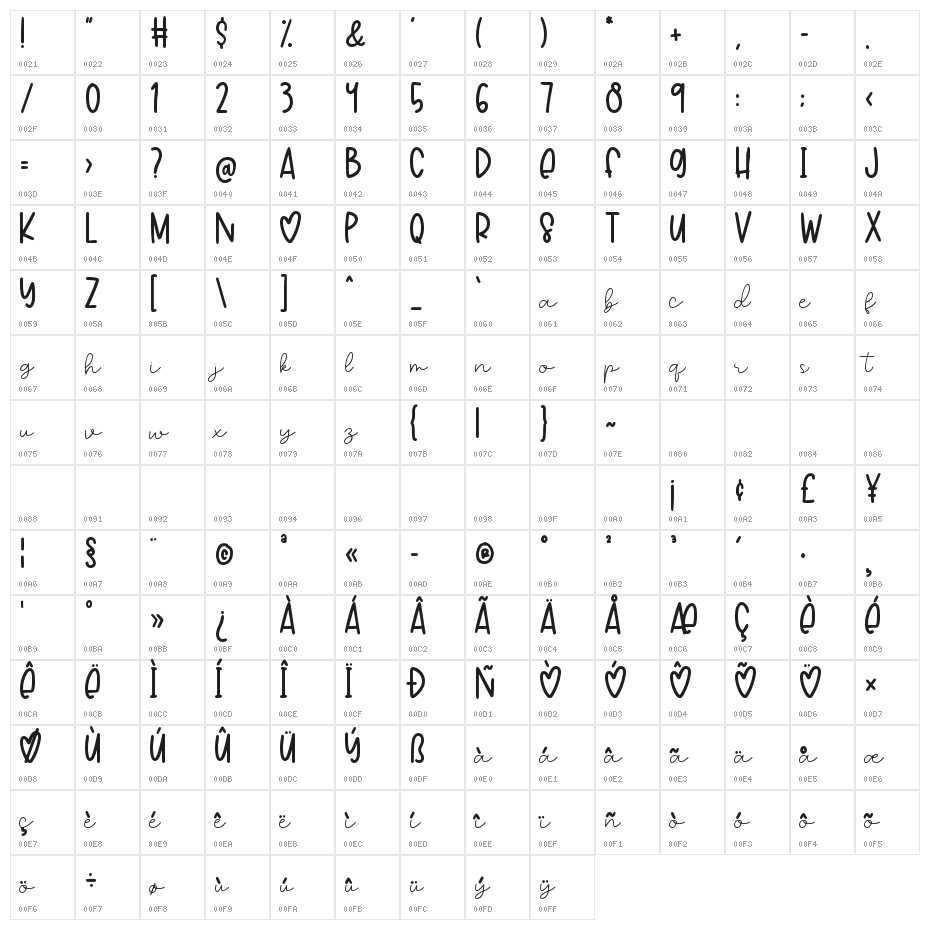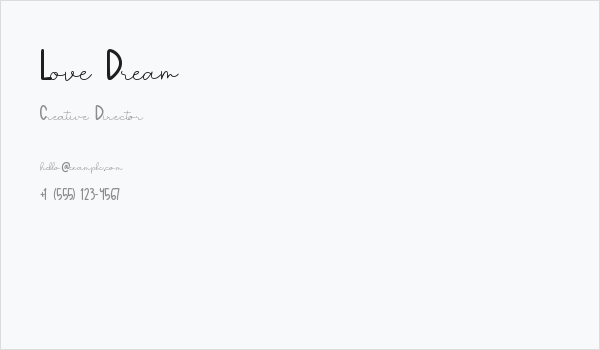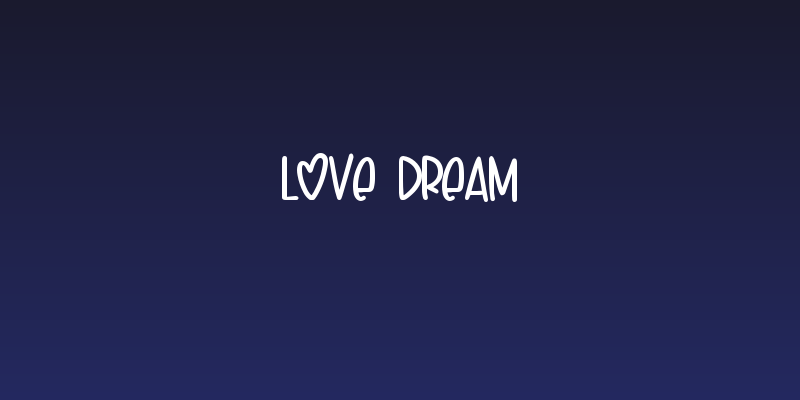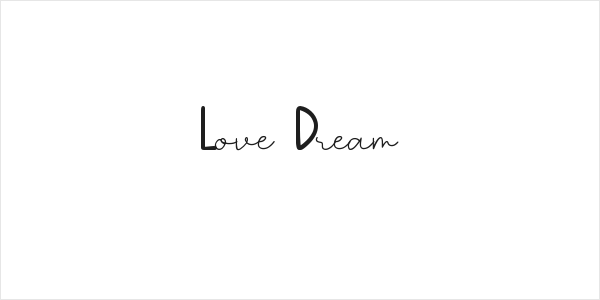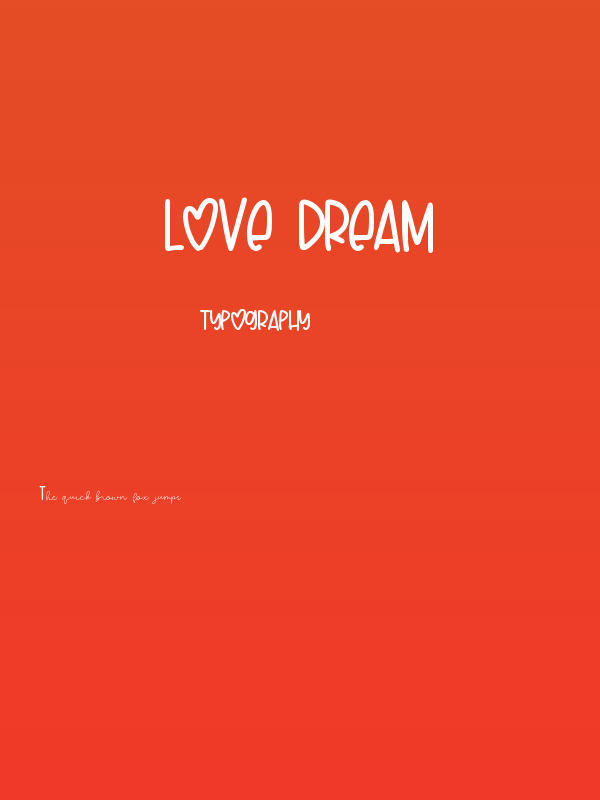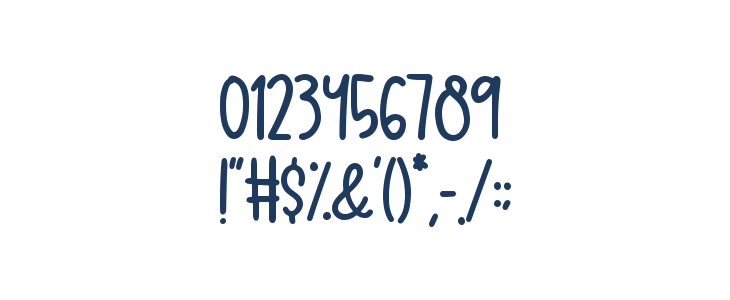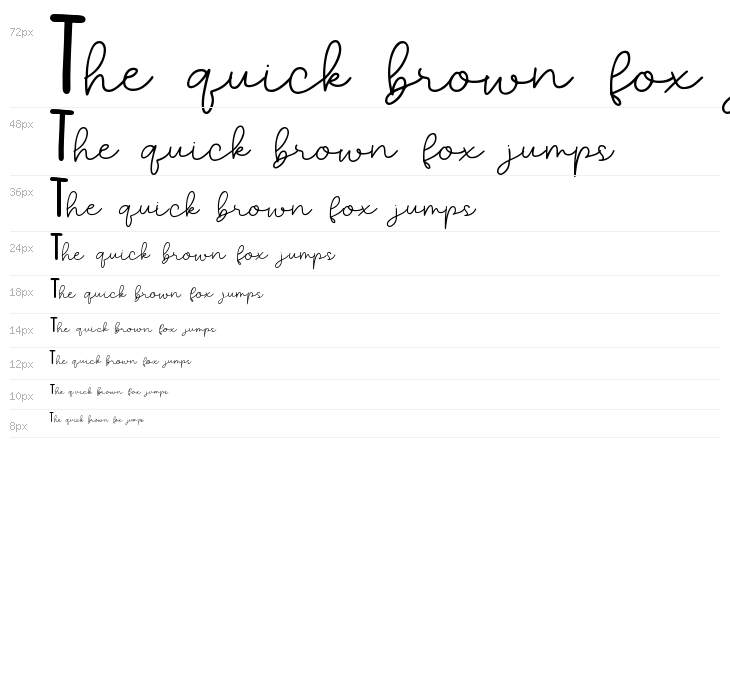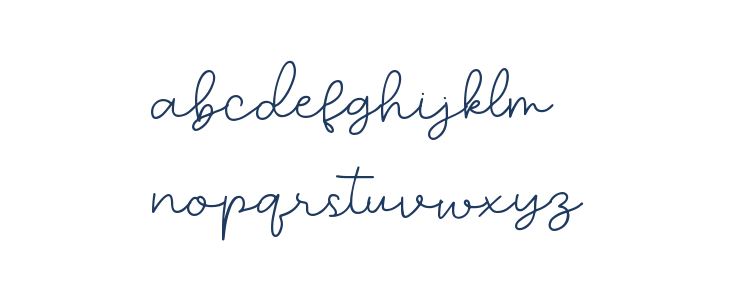
Love Dream Font
Love Dream Description
This playful and whimsical font features a handwritten style with a bold, rounded appearance. The uppercase letters are characterized by their smooth curves and slightly exaggerated forms, giving them a friendly and approachable feel. The lowercase letters maintain a consistent flow, with some letters featuring unique loops and swirls that add to the font's charm. Numbers are bold and clear, matching the style of the uppercase letters. Special characters are creatively designed, with some incorporating heart shapes, adding a touch of romance and fun. This font is perfect for projects that require a personal, informal touch.
| Proposed Projects | Ideal for greeting cards, wedding invitations, playful branding, and social media graphics. |